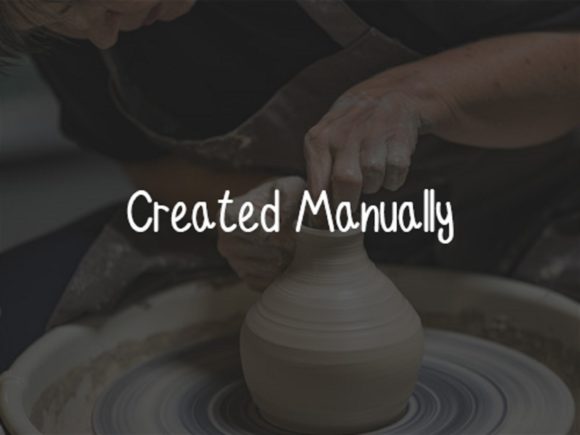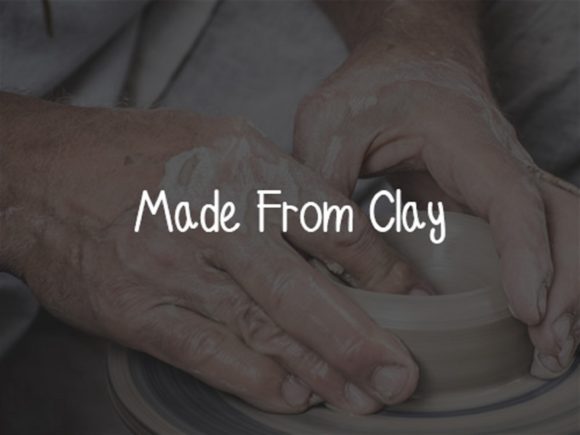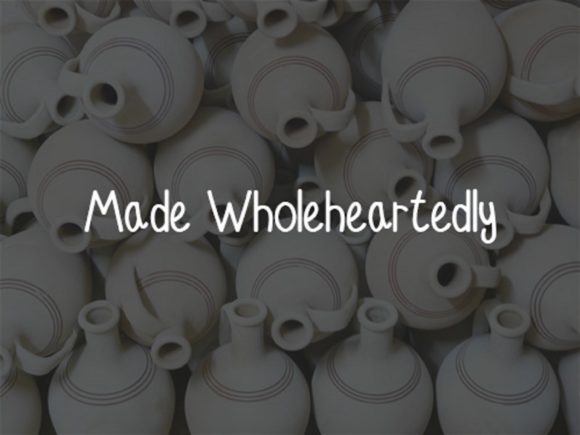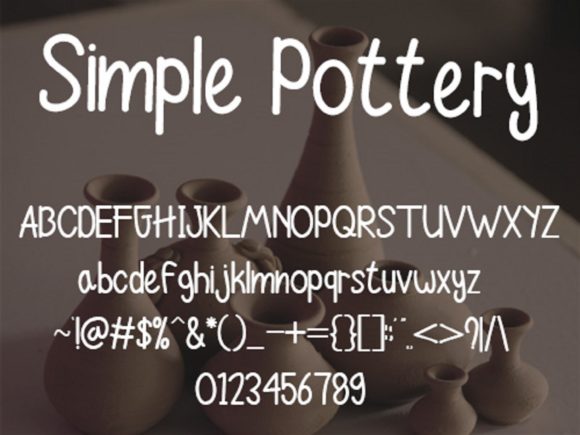
About Simple Pottery Font
Simple Pottery is a simple, friendly and natural handwritten font. It can be used for various purposes such as logos, headings, t-shirts, letterhead, signage, labels, news, posters, badges and so much more.